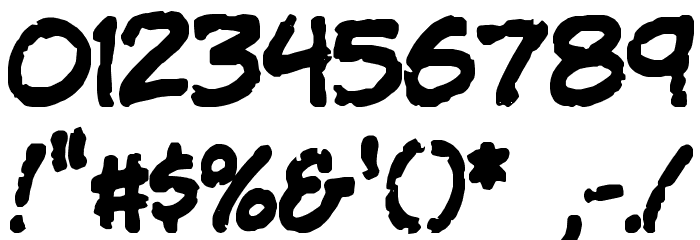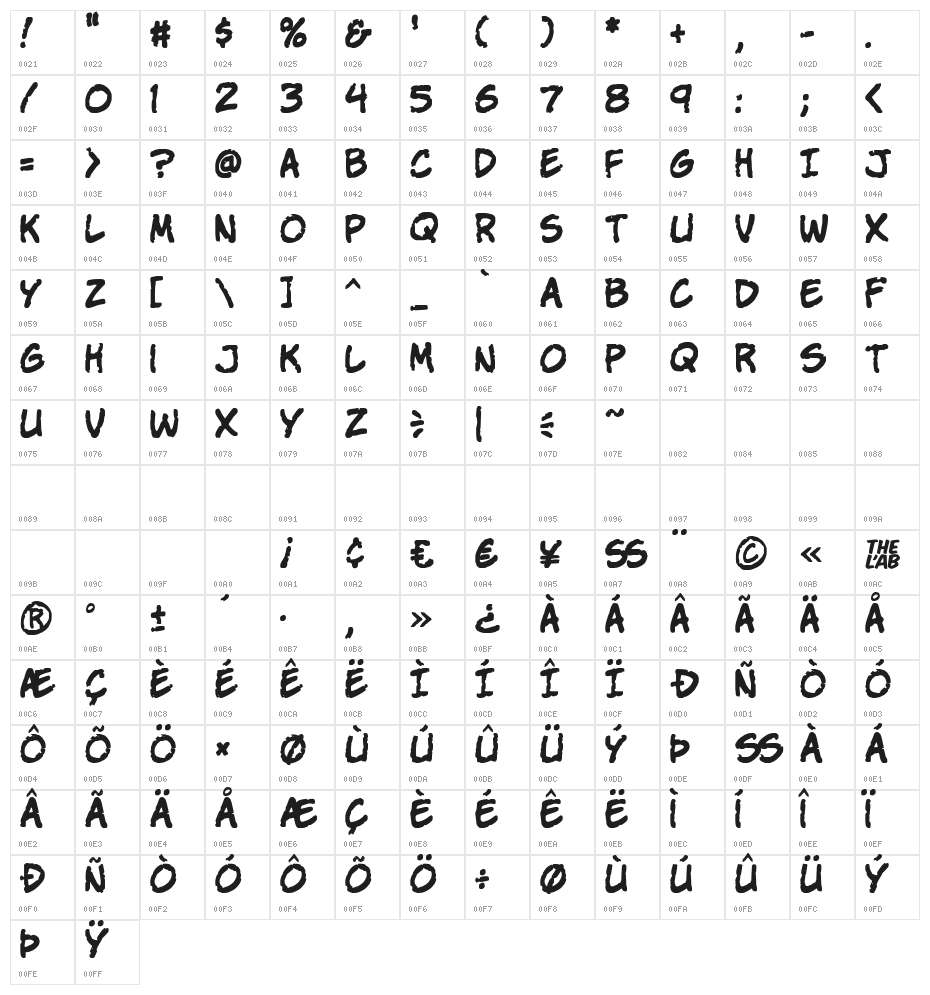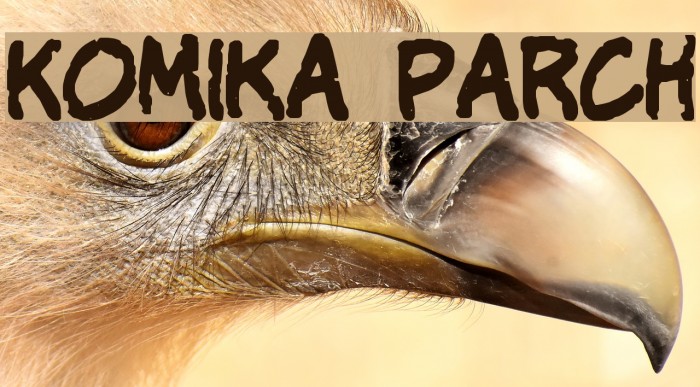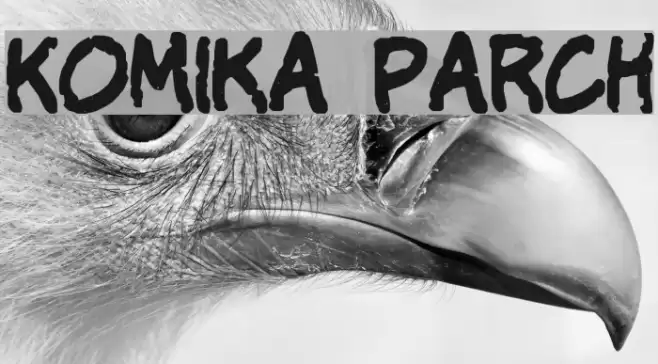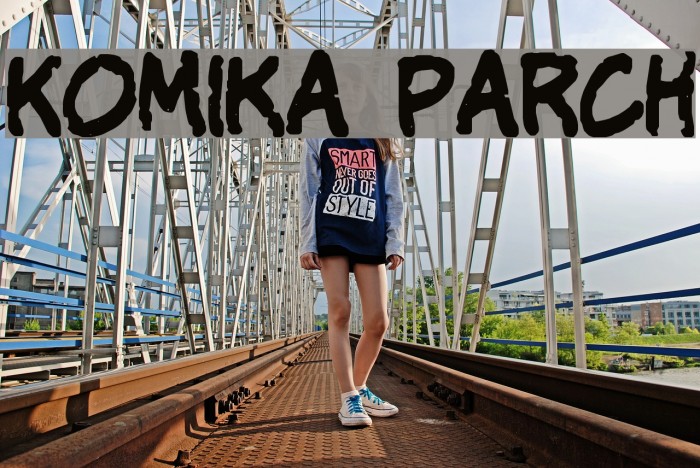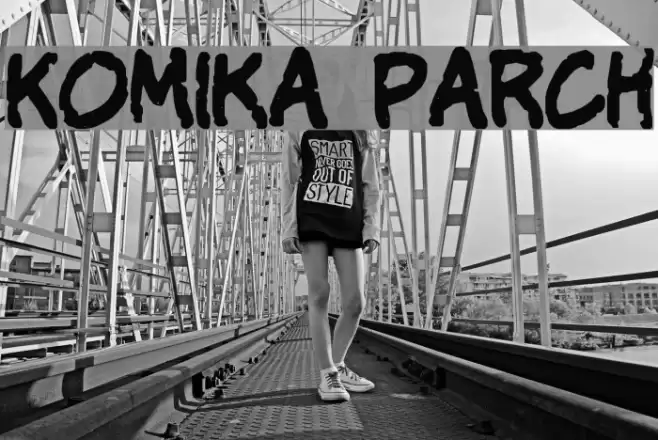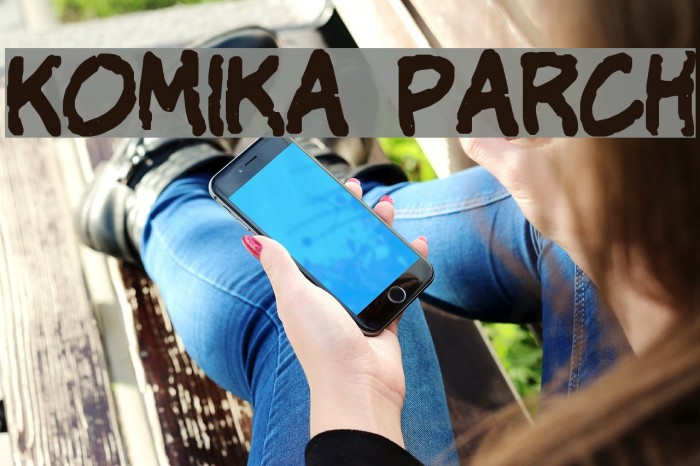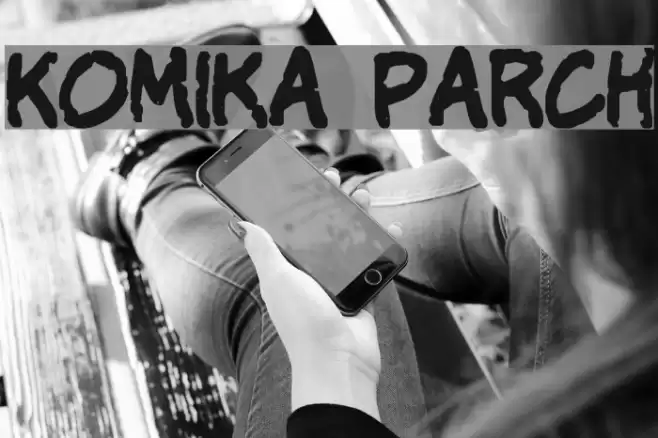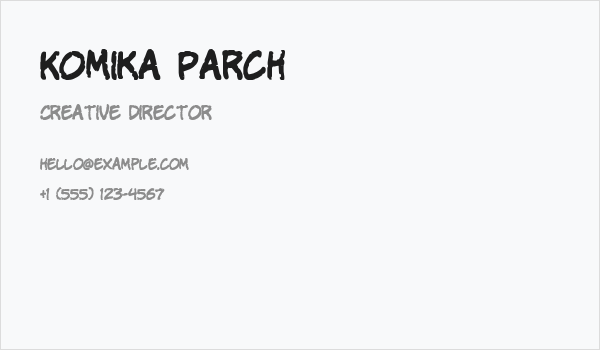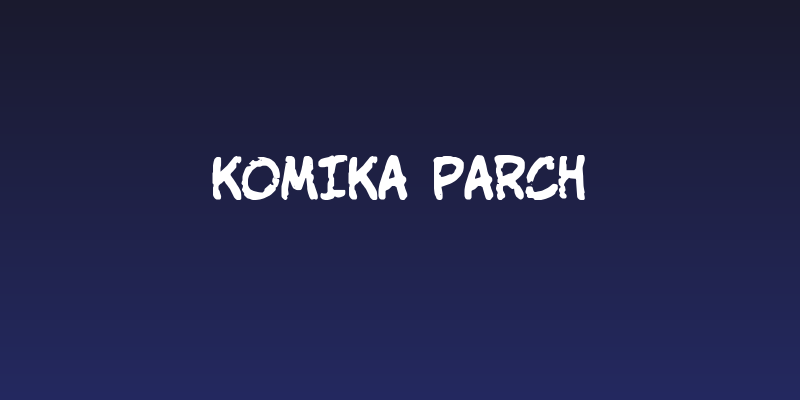
Komika Parch Font
Komika Parch Description
This font features a bold and playful style, reminiscent of comic book lettering. The characters are thick and slightly irregular, giving them a hand-drawn appearance. The strokes are bold and consistent, with a slight wobble that adds to the casual and fun aesthetic. The uppercase and lowercase letters maintain a uniform width, contributing to a cohesive look. Numbers and special characters follow the same playful design, making the font versatile for various uses. Its energetic and informal style makes it ideal for projects that require a touch of whimsy and creativity.
| Proposed Projects | Ideal for comic books, children's books, playful branding, posters, and casual invitations. |